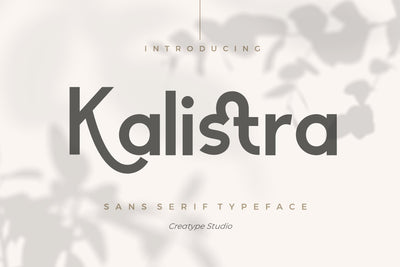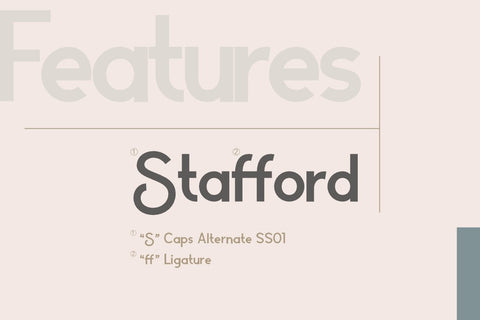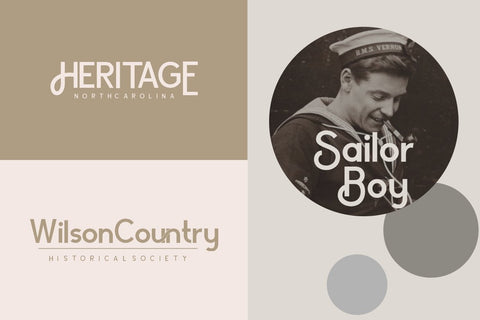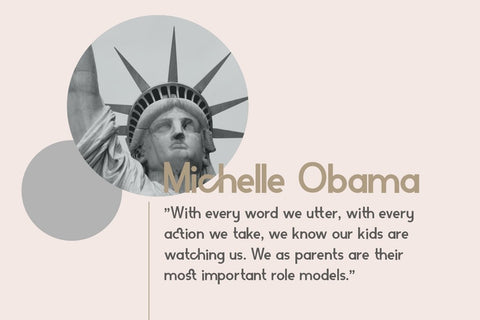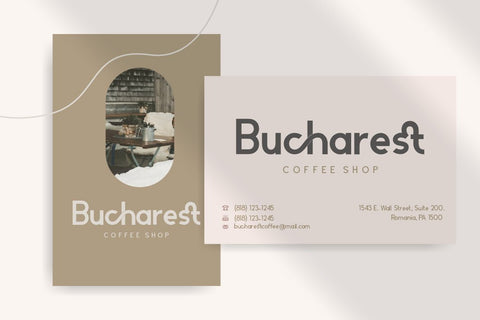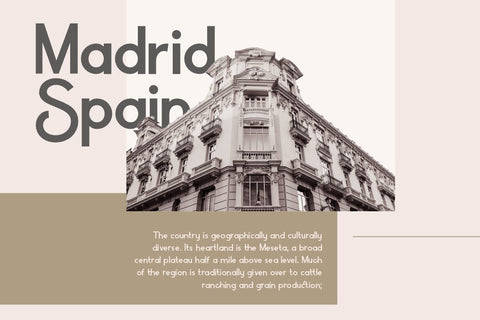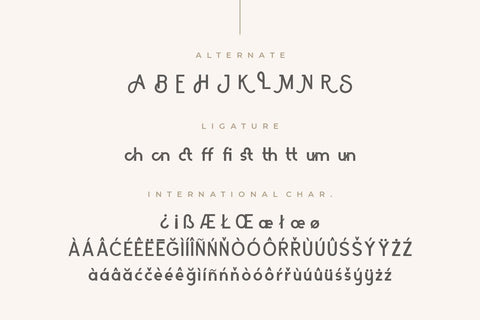
Kalistra Sans Serif Typeface
Kalistra a sans serif font looks stylish, elegant and sophisticated will perfect for your latest project.
Kalistra is perfect for branding projects, logo, wedding designs, social media posts, advertisements, product packaging, product designs, label, photography, watermark, invitation, stationery and any projects that need handwriting taste.
- Ton of glyphs
- Ligature & Alternate